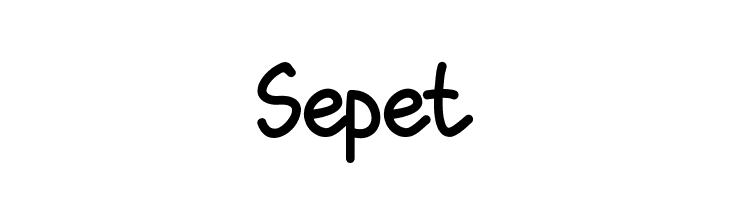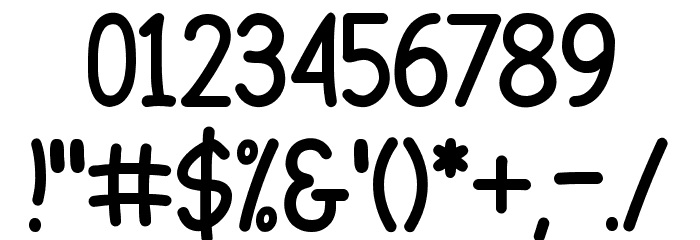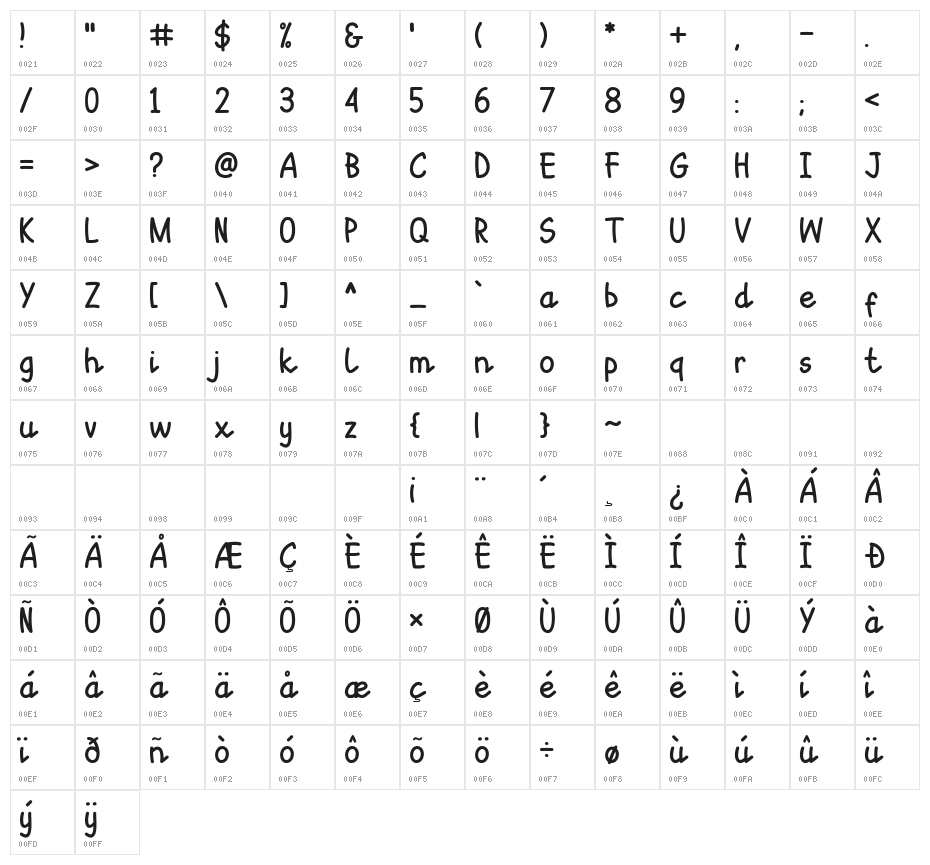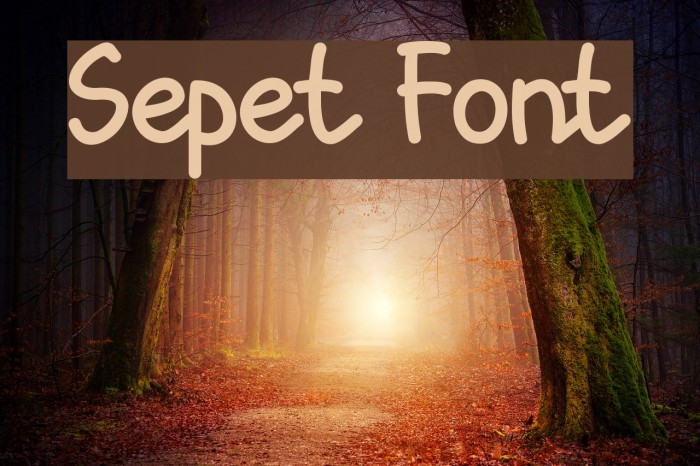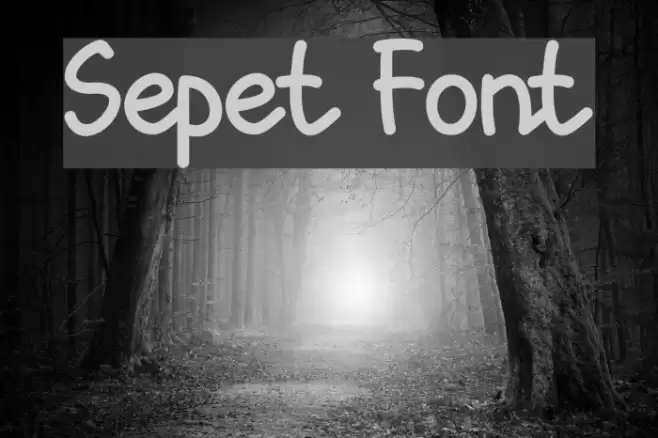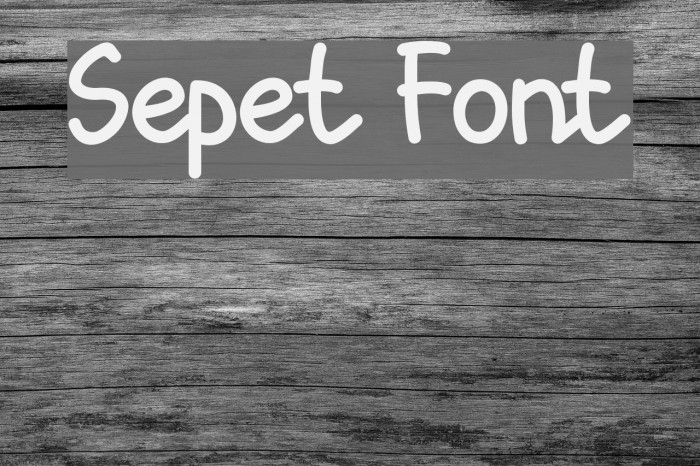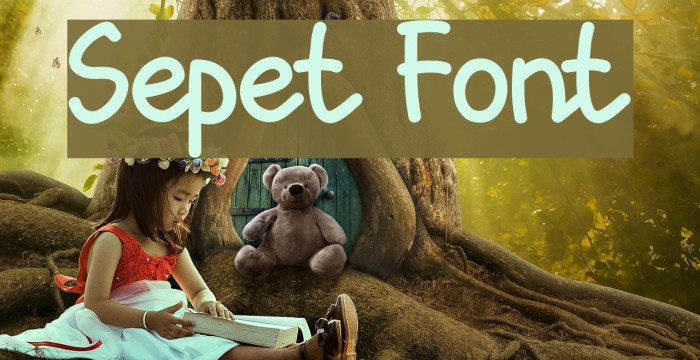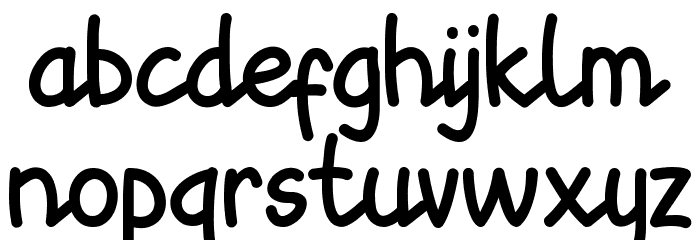
Sepet Font
Sepet Description
This playful and rounded font features a handwritten style with smooth curves and a casual appearance. The letters are slightly irregular, adding a whimsical and friendly touch. The uppercase and lowercase characters maintain a consistent flow, while the numerals and special characters complement the overall style. The font's informal nature makes it ideal for projects that require a personal and approachable feel. Its legibility is maintained across various sizes, making it versatile for different applications.
| Proposed Projects | Ideal for children's books, greeting cards, informal invitations, and playful branding. |